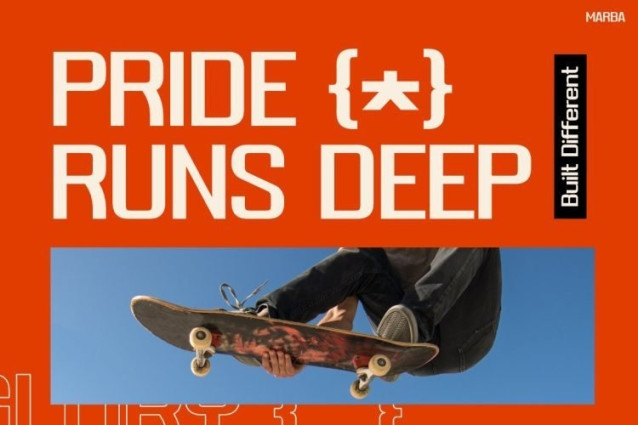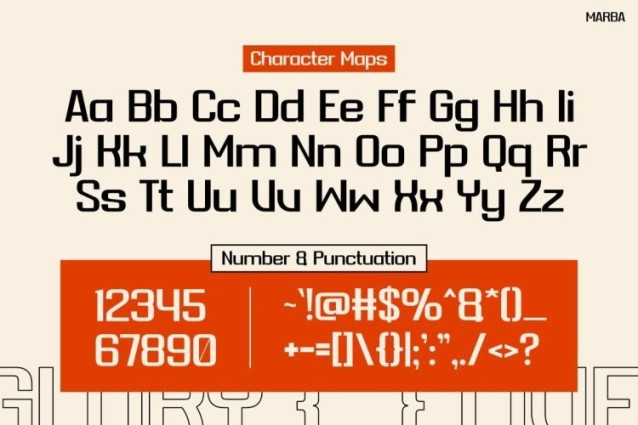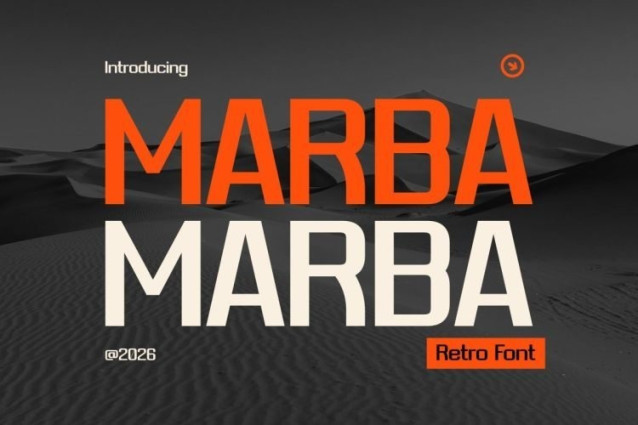
Marba Font
Marba Font is a bold, retro-futuristic display sans-serif font that blends industrial structure with a high-tech aesthetic. Its characters feature a condensed posture, flat outer curves, and distinct angular cuts on the inner counters, giving it a mechanical, constructed feel that commands attention.
Natural fits include action sports graphics, energy drink packaging, tech branding, event posters, and gaming titles. It works exceptionally well in high-impact headlines, editorial layouts, and apparel designs where a strong, forward-looking personality is required.